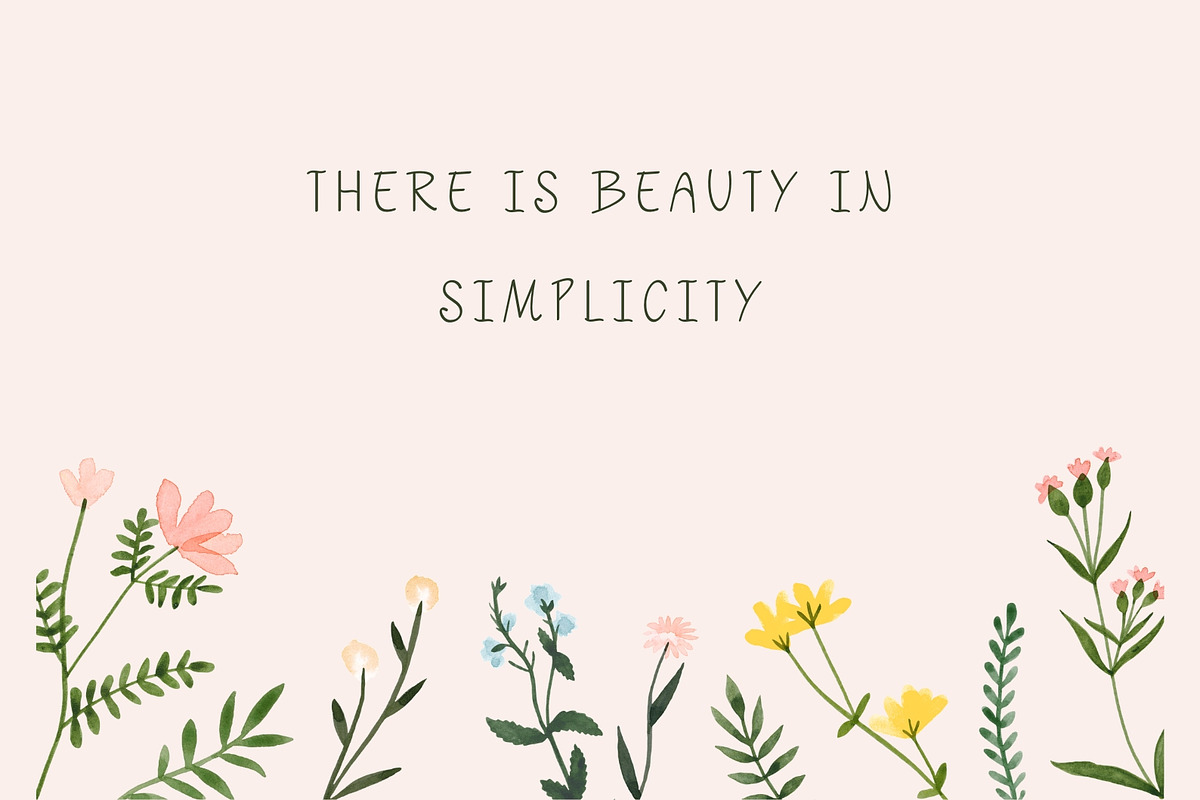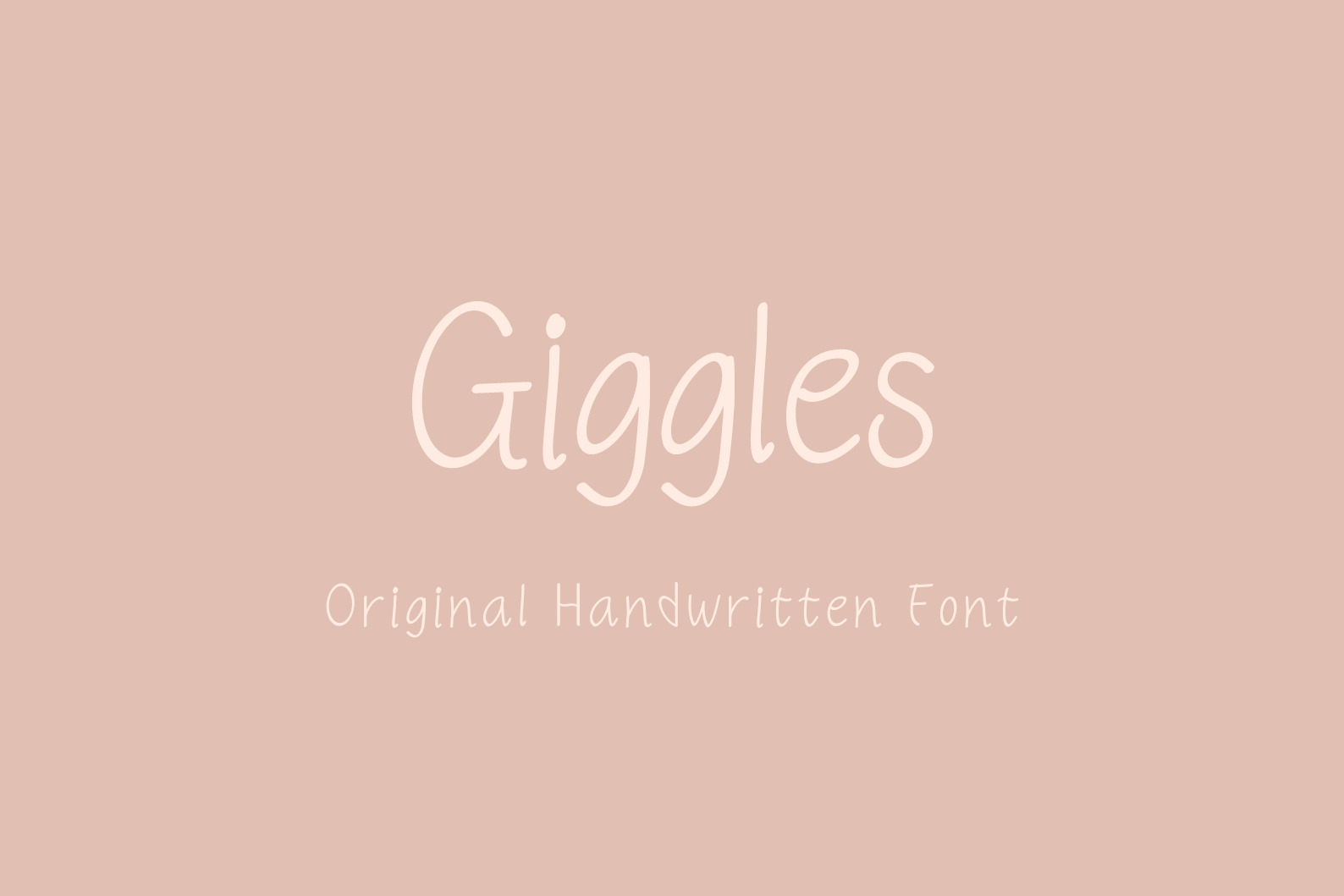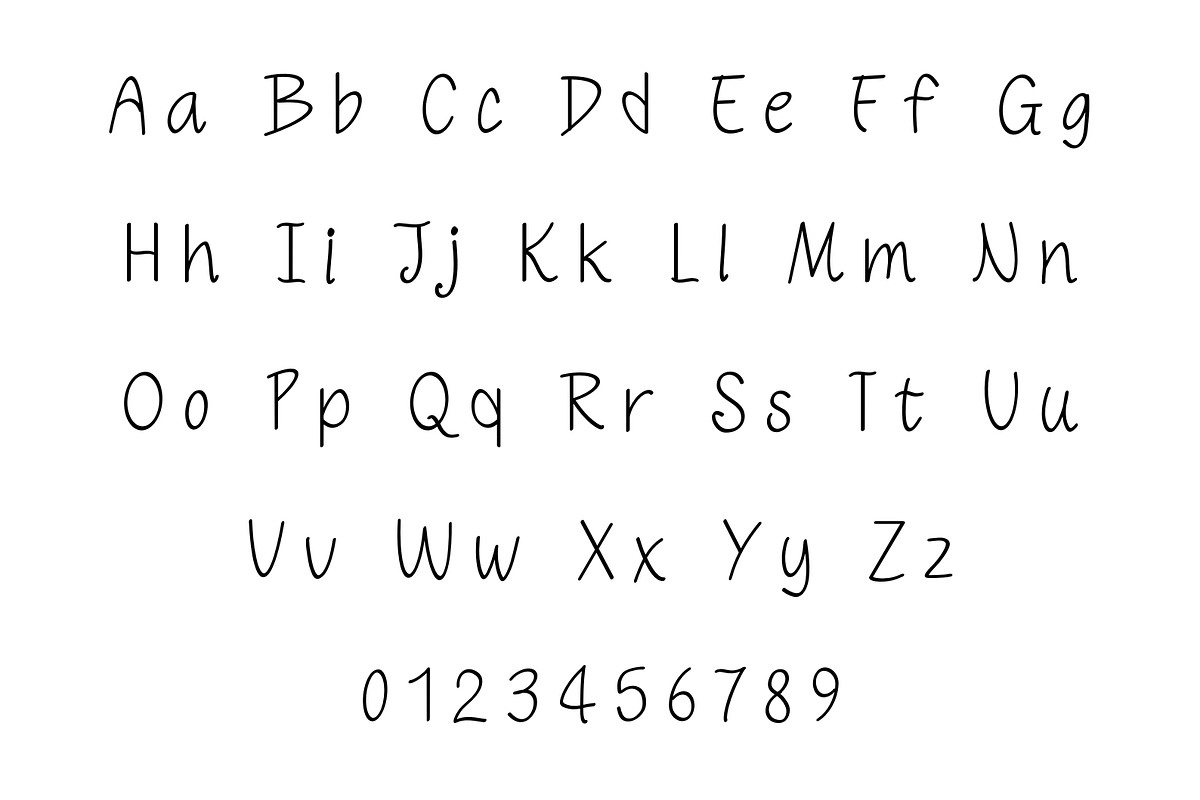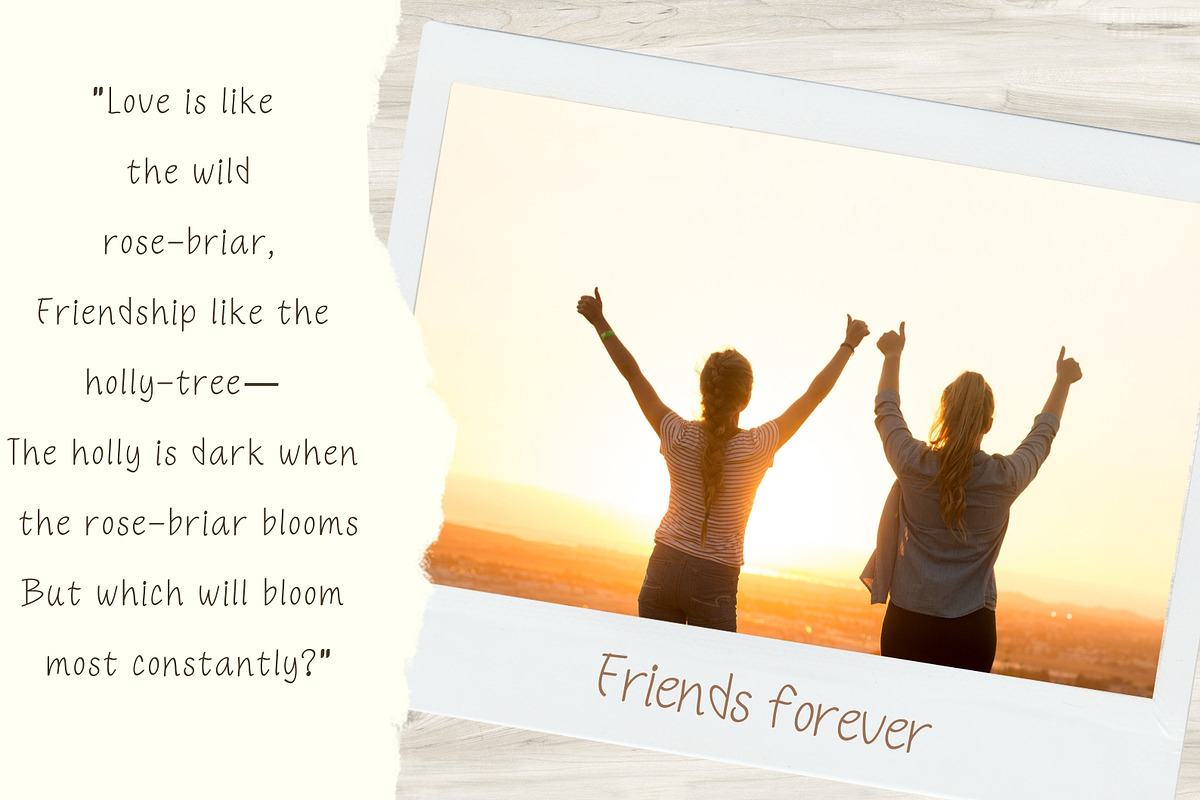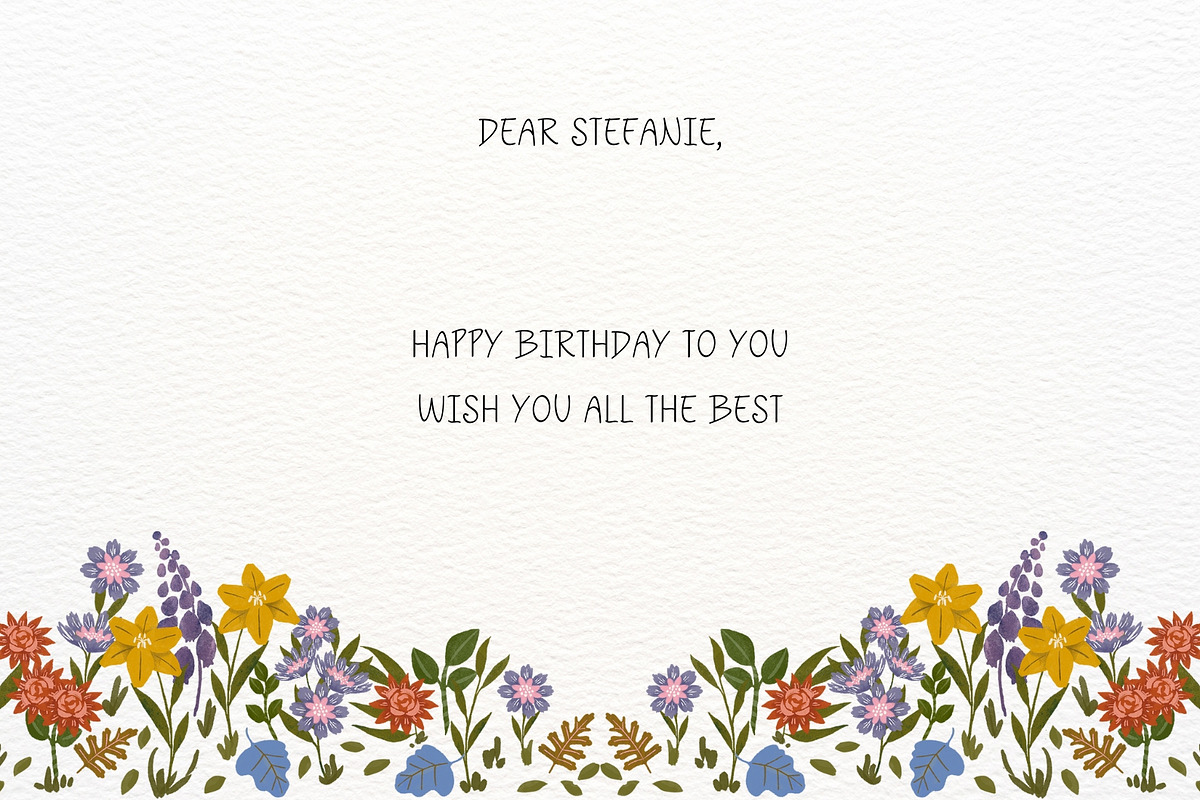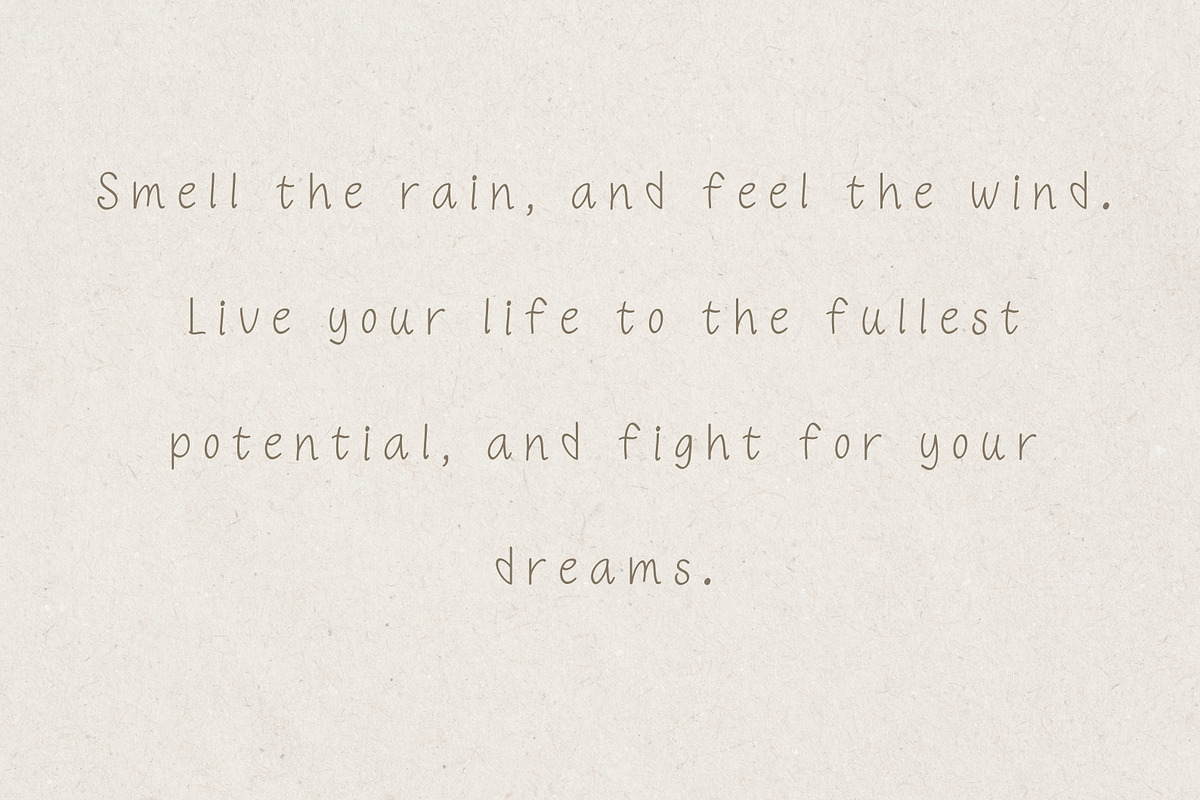
Giggles - Handwritten font
This font is perfect for social media, planner notes,instagram quotes, procreate, shirts, svg designs, logos, invitations, Cricut projects and more!